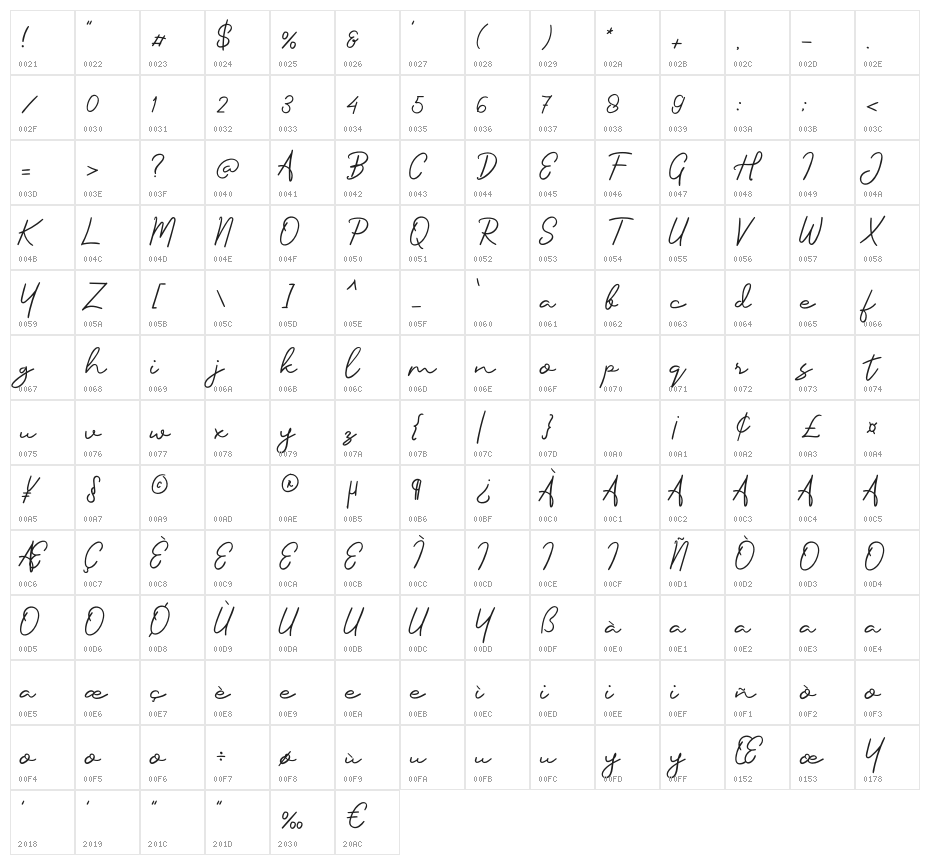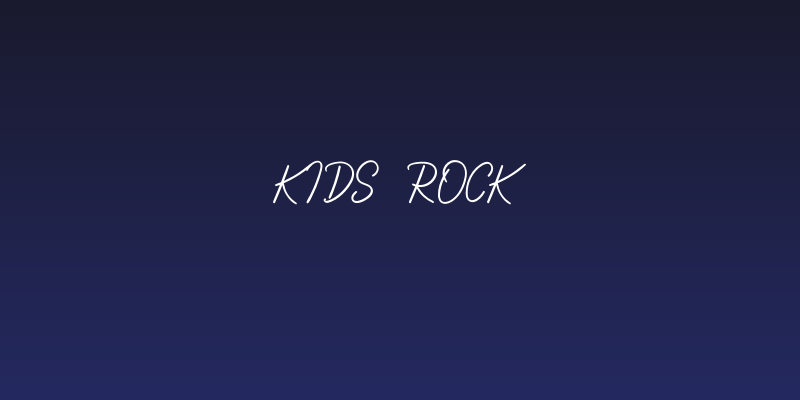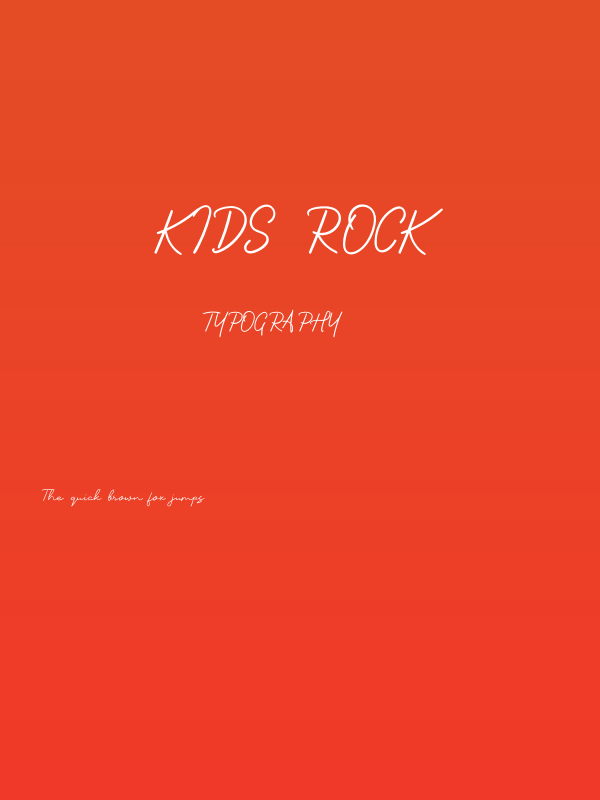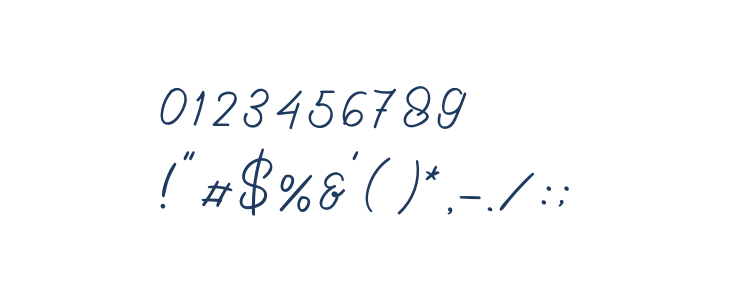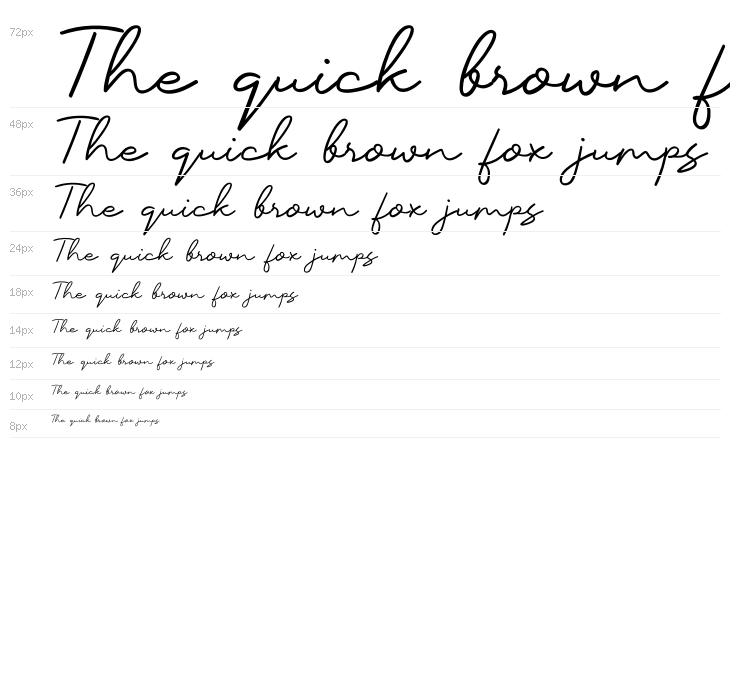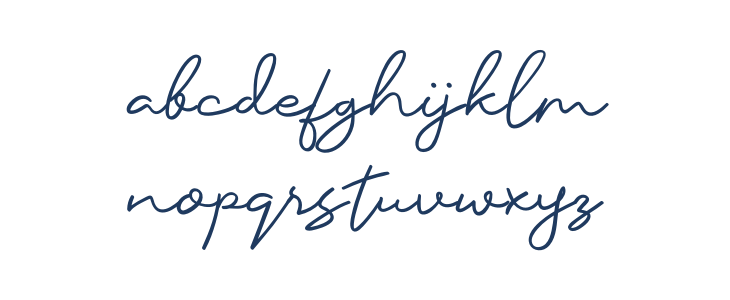
Kids Rock Font
Kids Rock Description
This font features a playful and energetic script style, characterized by its fluid and connected letterforms. The uppercase letters are tall and slightly slanted, giving a sense of movement and dynamism. The lowercase letters maintain a consistent flow, with rounded edges and smooth curves that enhance its casual and friendly appearance. The numerals are clear and legible, matching the overall style of the alphabet. Special characters are thoughtfully designed to complement the script, maintaining the same lively and informal aesthetic. This font is ideal for projects that require a personal touch, such as invitations, greeting cards, or playful branding.
| Proposed Projects | Ideal for invitations, greeting cards, playful branding, and personal projects. |